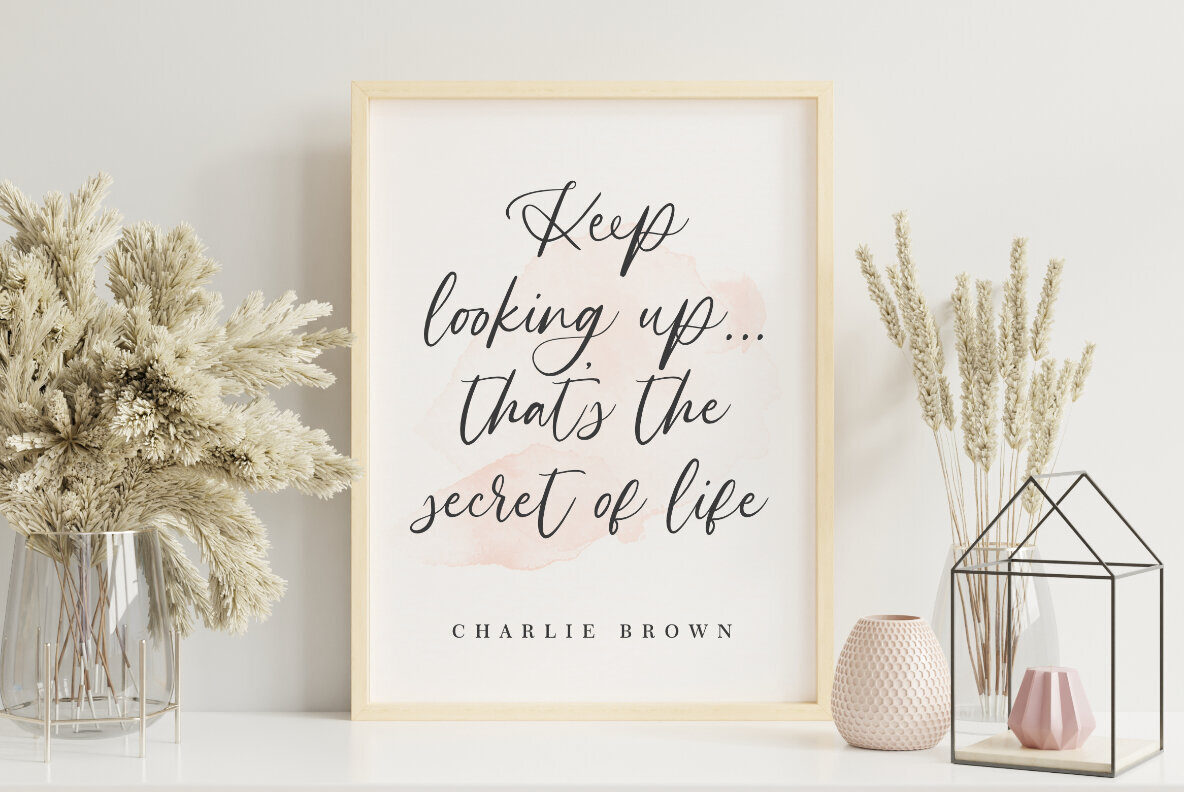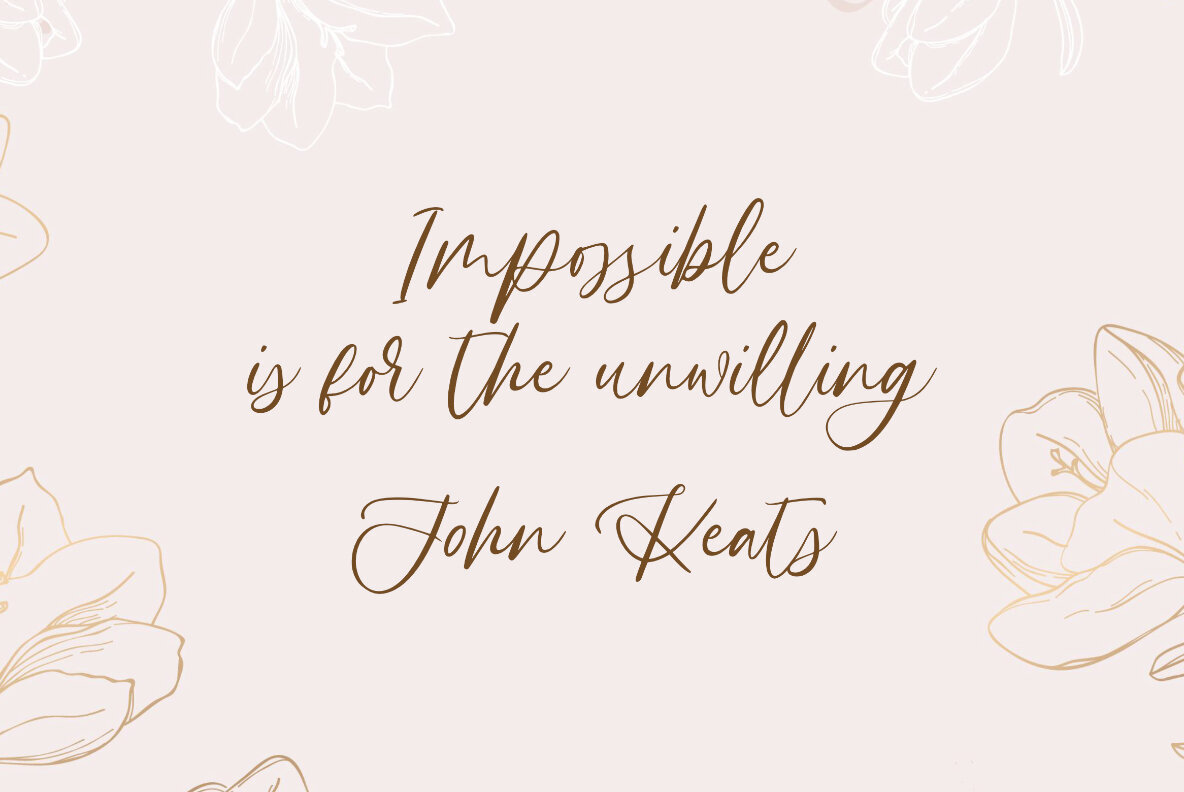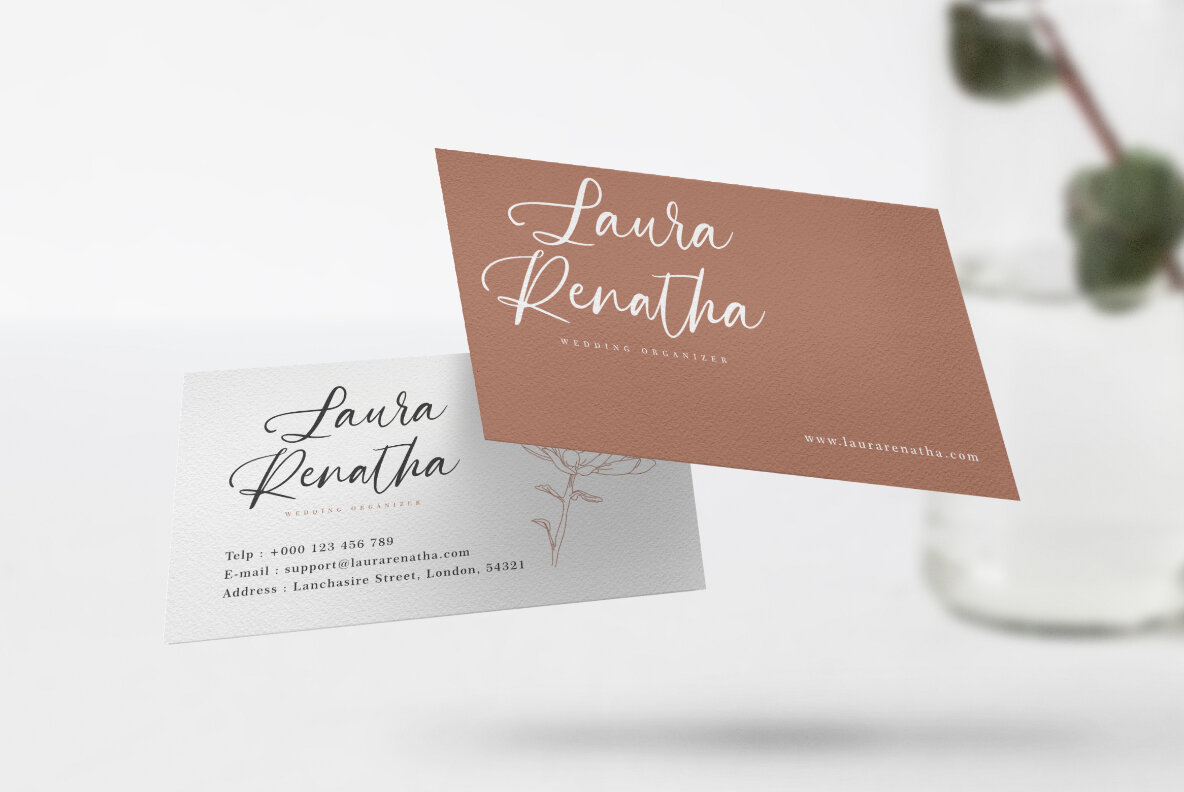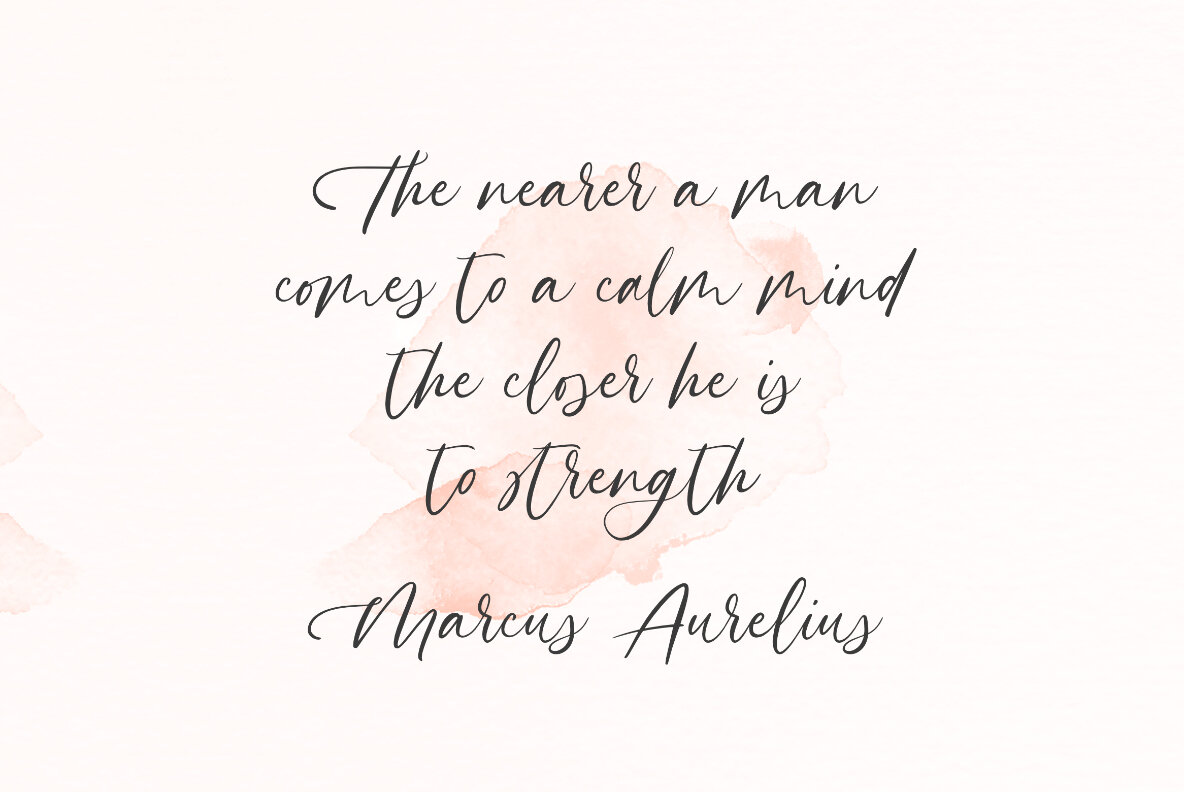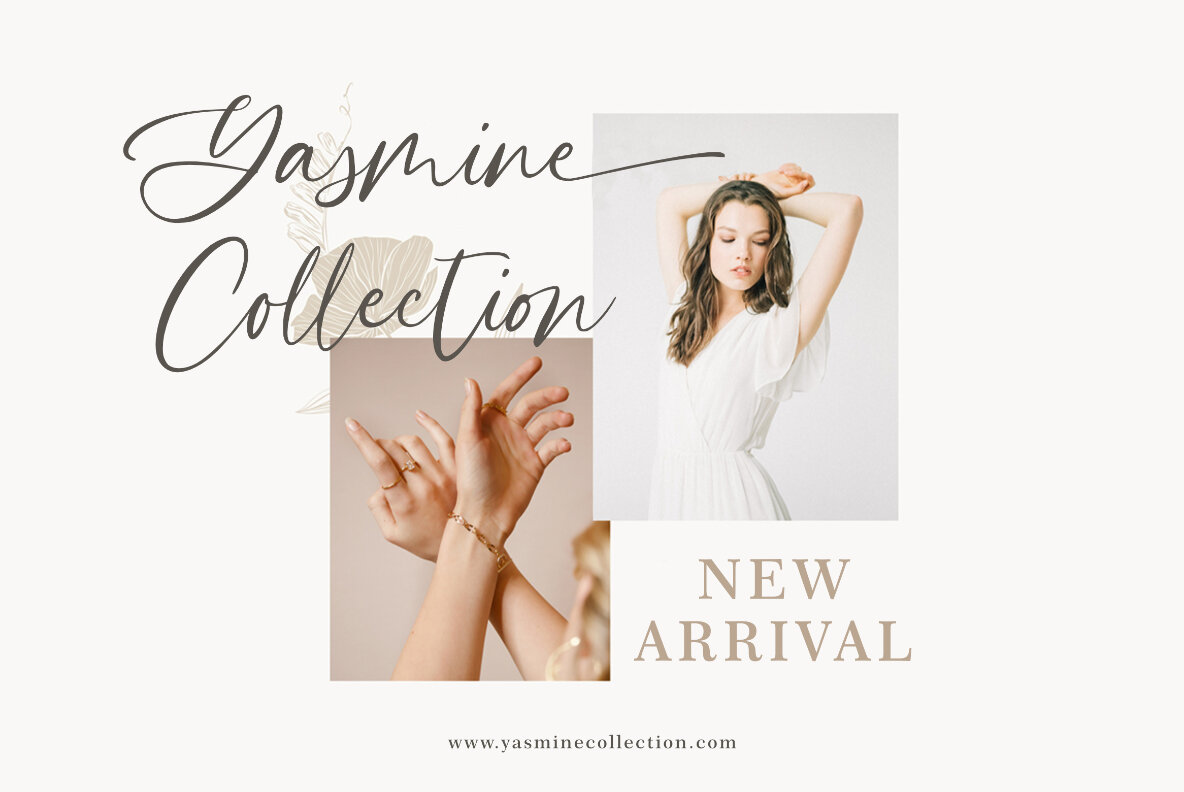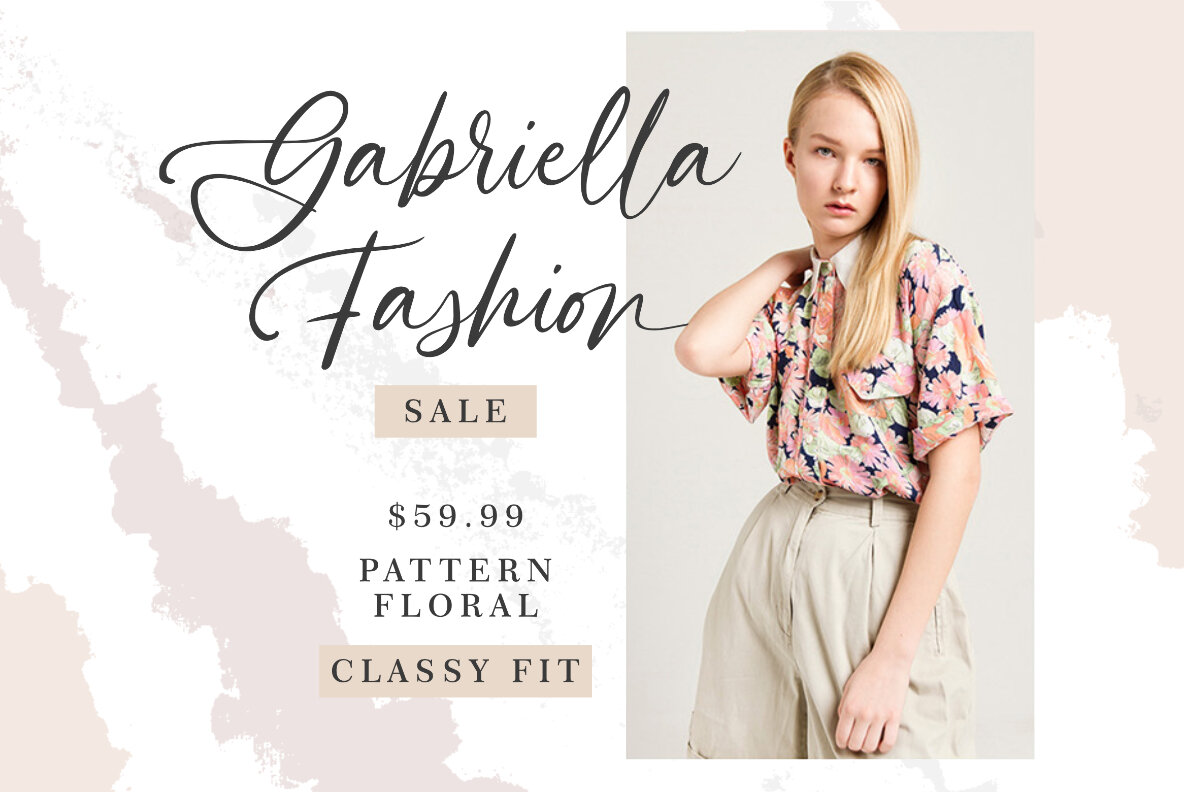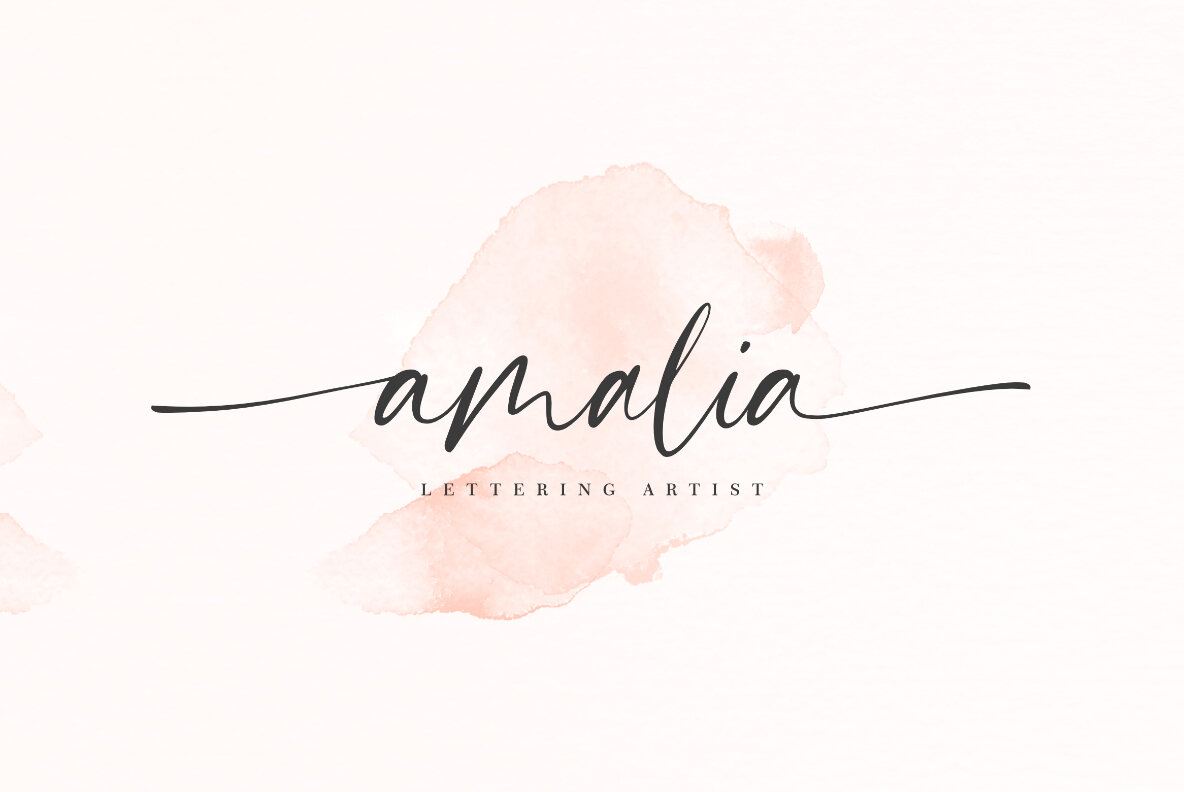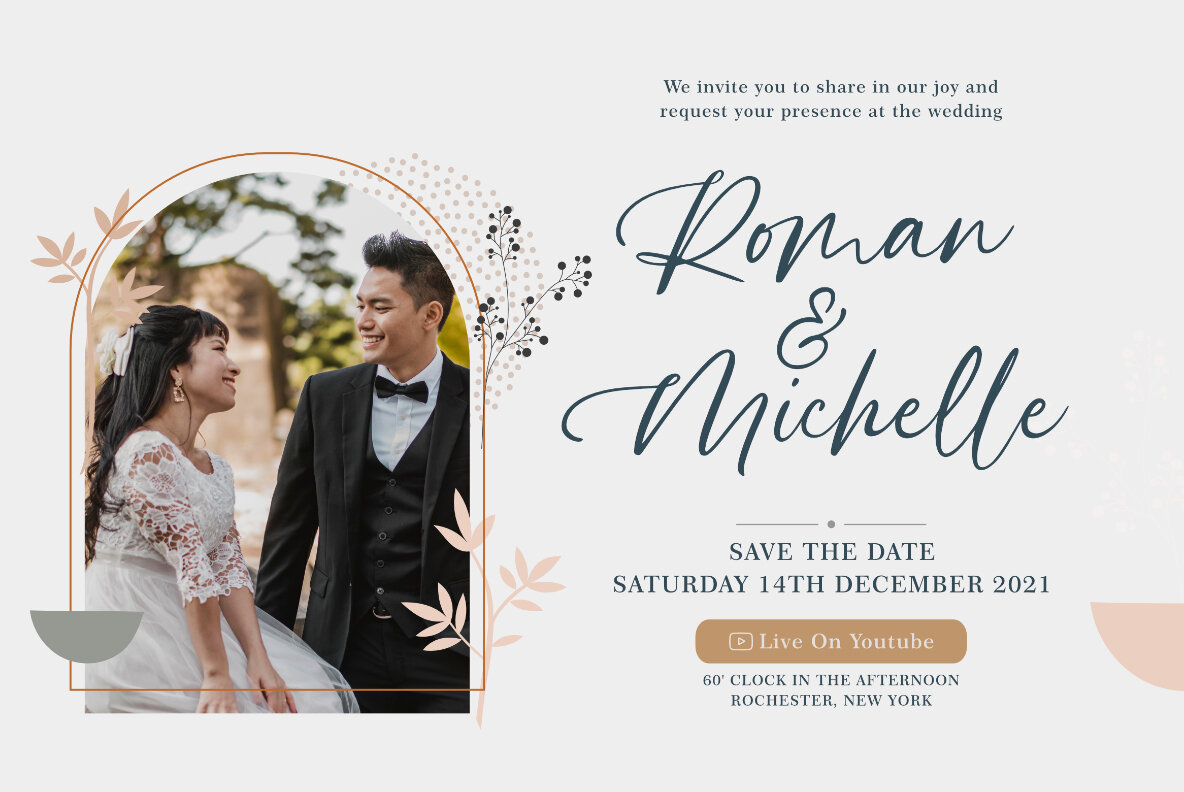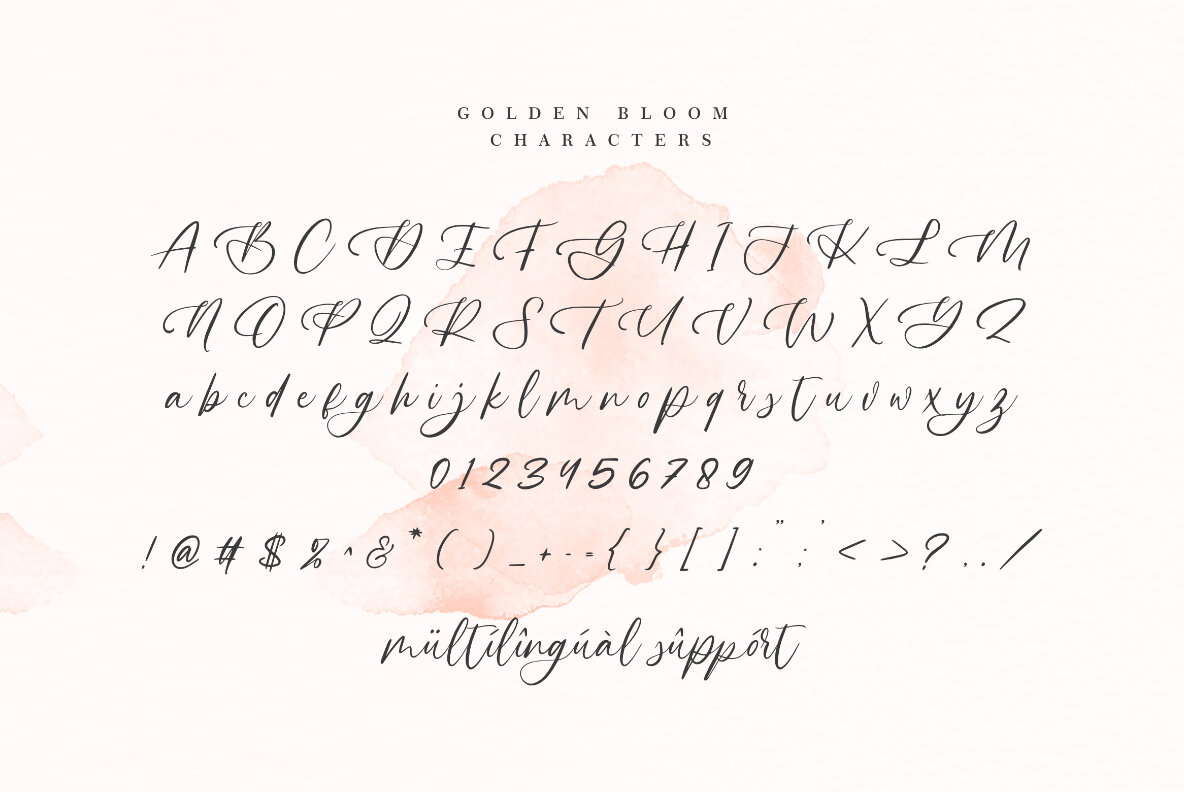
Golden Bloom Font
Golden Bloom
Golden Bloom captivates with its refined style, exuding sophistication and elegance. This script font is designed to enhance your projects with its graceful aesthetics and stylish details.Golden Bloom: A Chic and Sophisticated Script Font